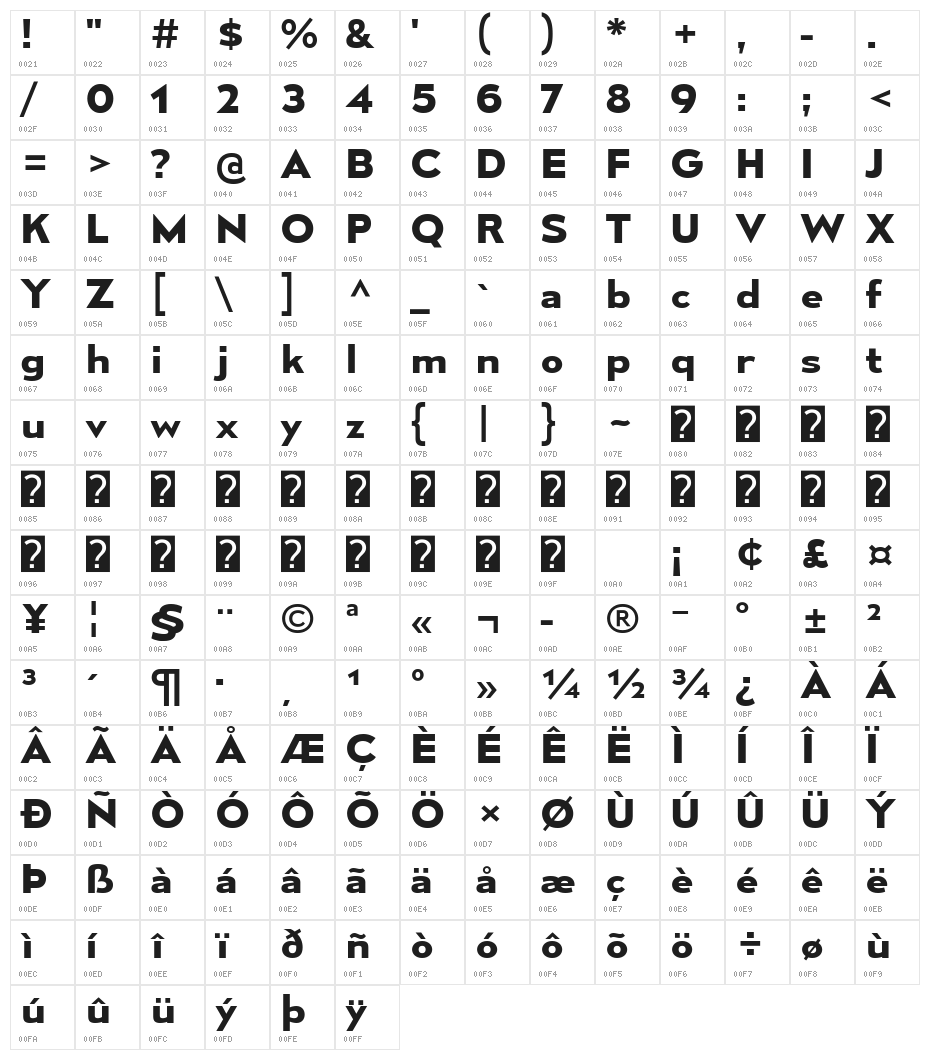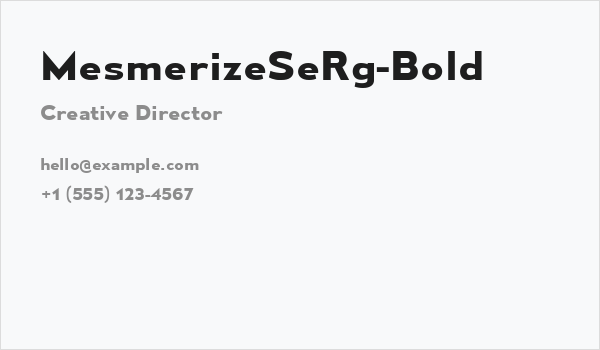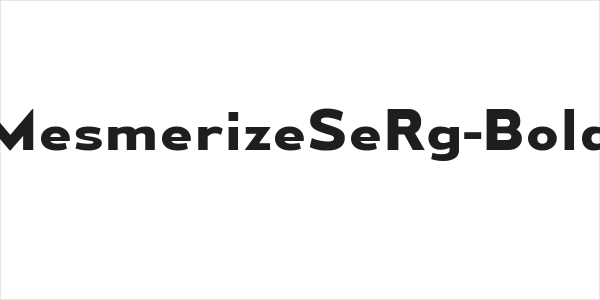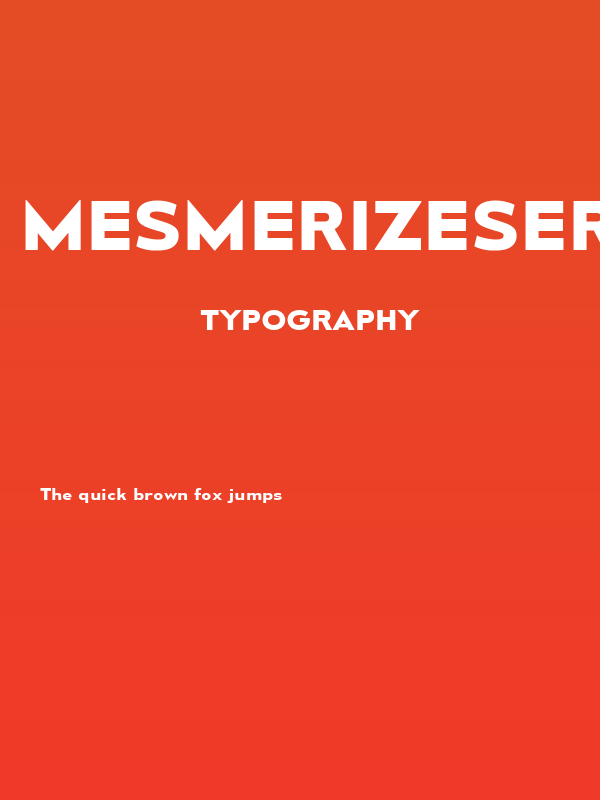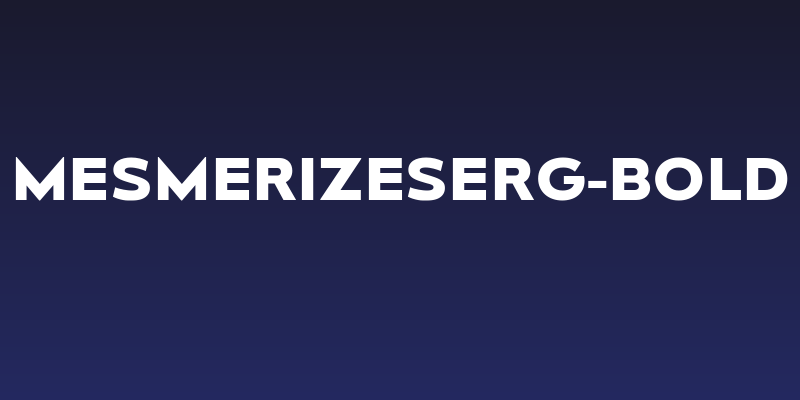
MesmerizeSeRg-Bold Font
MesmerizeSeRg-Bold Description
This font is a bold, sans-serif typeface with a modern and clean aesthetic. It features strong, geometric letterforms with consistent stroke widths, creating a uniform and powerful appearance. The uppercase and lowercase letters are well-proportioned, with a slight curvature that adds a touch of softness to the overall design. The numerals are clear and distinct, making them highly legible. Special characters are included, maintaining the same bold and structured style. This font is ideal for making a strong visual impact while ensuring readability.
| Proposed Projects | Ideal for branding, headlines, posters, and digital media where a strong, modern presence is desired. |